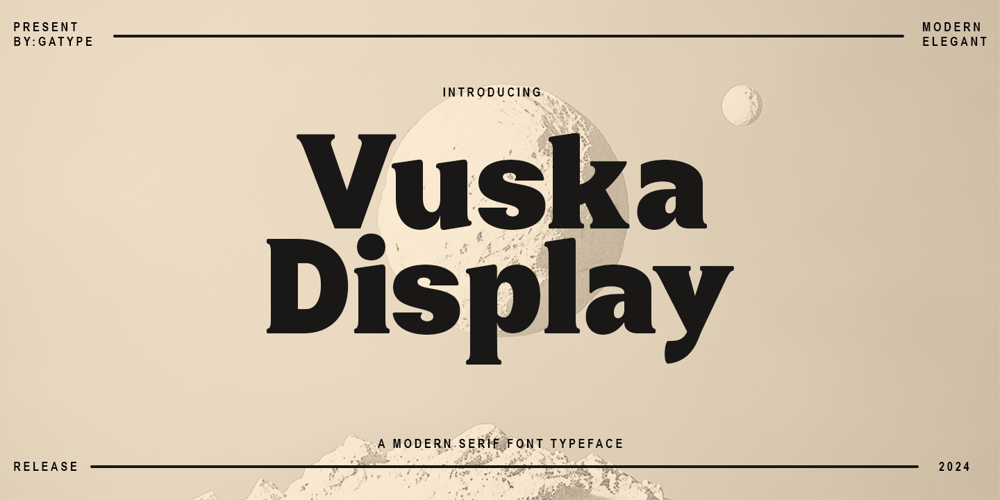
Vuska Black
Vuska Black font
Vuska Black Font Family was designed by Nadia Auliana and published by Propertype. Vuska Black contains 1 styles and family package options. Vuska Display is a font with a modern and elegant style, featuring clean lines and sleek design. Its readable yet attractive characters make it suitable for various global design needs, such as logos, posters, and professional branding.Vuska Display is encoded with PUA Unicode, which allows full access to all additional characters without having to design special software. Mac users can use Font Book , and Windows users can use Character Map to view and copy any additional characters to paste into your favorite text editor/application.If you need help or have any questions, let me know. I’m happy to help.Thank you